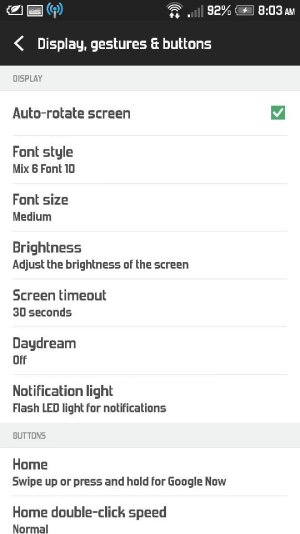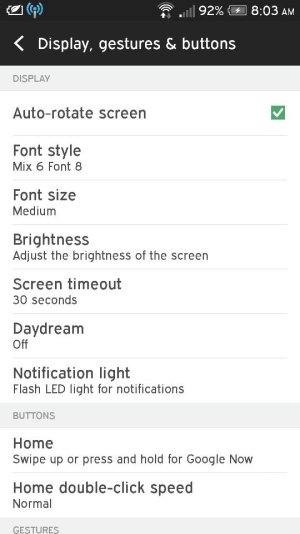
Font "Boldness" Post Sense 6.0 Update
Following update, I am having a really hard time reading the home screens, BlinkFeed, etc as the fonts are much lighter than prior to the update. It is particularly bad in low light conditions. Have changed font sizes but can't find a way to make them "bolder". Have also messed with themes to see if that helps to no avail. Any ideas? Thx.
Sent request in HTC, there is no way to change font boldness at present, uncertain of any fix.
Try a bolder font. You can now load tons of them
Try app Free Font 50 pack 6. Here are a couple bold ones I've used from there. 251909.jpg